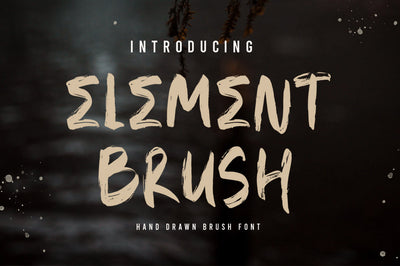
ELEMENT Brush Font
ELEMENT is brush caps font bursting with natural rough dry brush strokes, and the stroke of hand sharp and quickly. You can use and enjoy Brocken, for anything for your projects.
And this font perfect for signature, logo, branding, poster, apparel, photography, title, social media post, ad banner, book cover, product packaging, handwritten quotes, greeting cards, and advertising. You can combine uppercase and lowercase letters with ease, and create it unique and cool design.
All fonts is capitals containing upper & lowercase characters, numerals, multilingual support and a large range of punctuation.